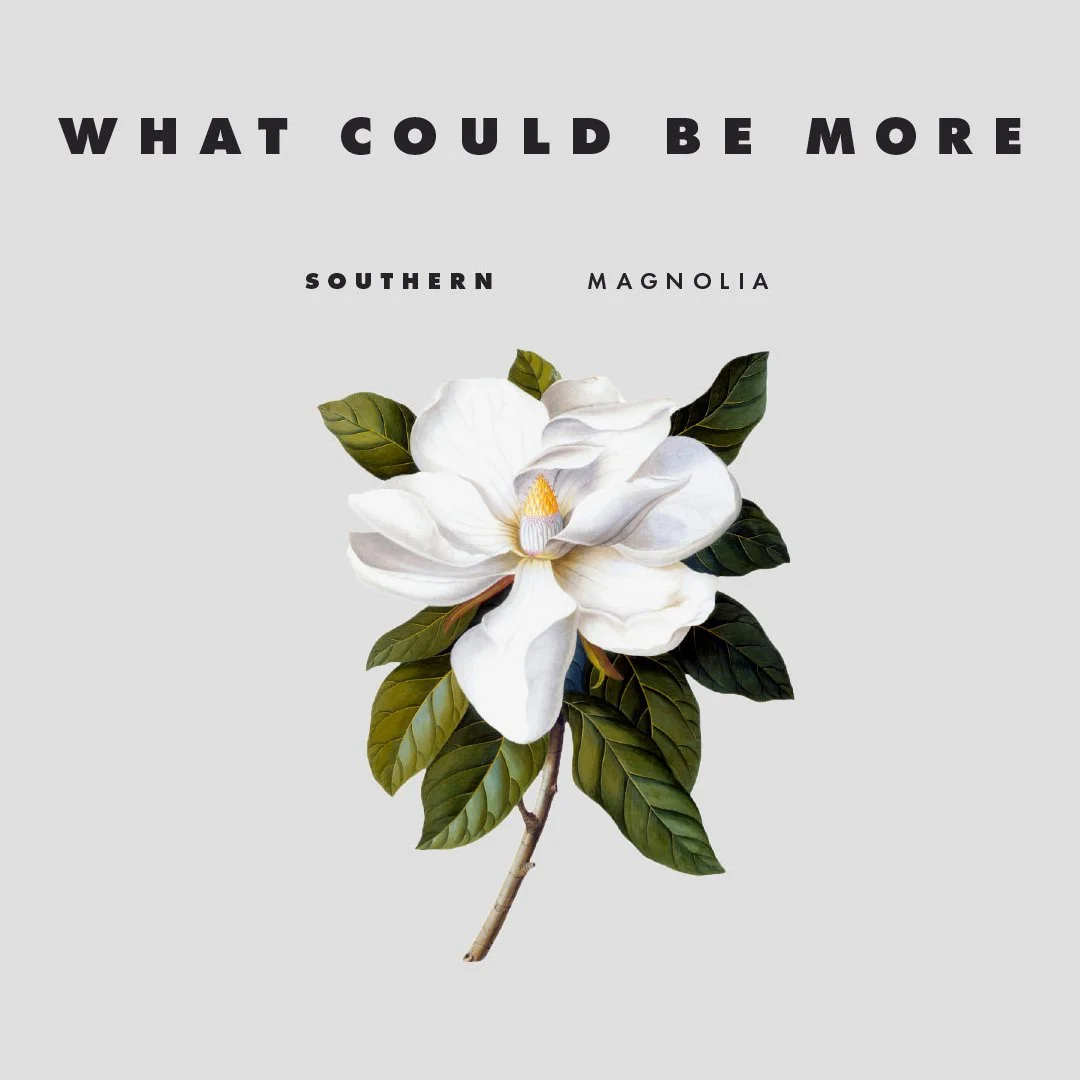
Cultivation Food Hall
Cultivation Food Hall nestled in northeast Jackson, Mississippi, introduced two of its own food concepts: Americana and Italian Fare. Tasked with designing the logos, I drew inspiration from their existing brand. Americana's logo features a simplified line-art magnolia within the Cultivation logo’s letter 'C', while Italian Fare showcases an olive branch in the same manner. Both logos reflect the symbolism of their geographic identity.